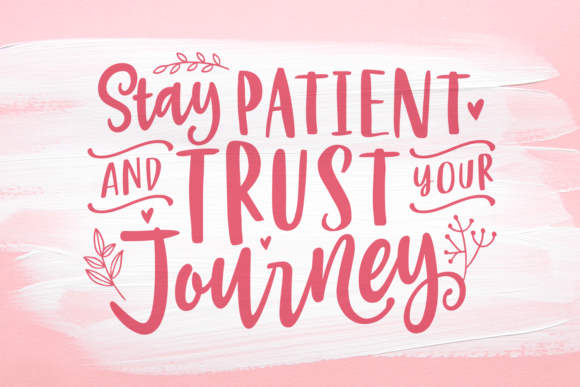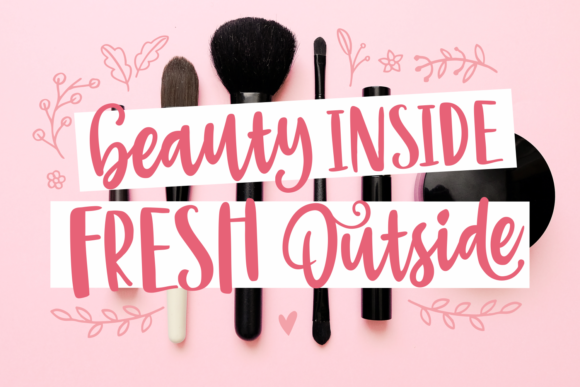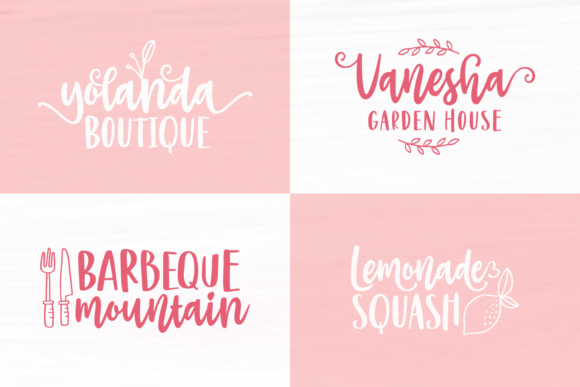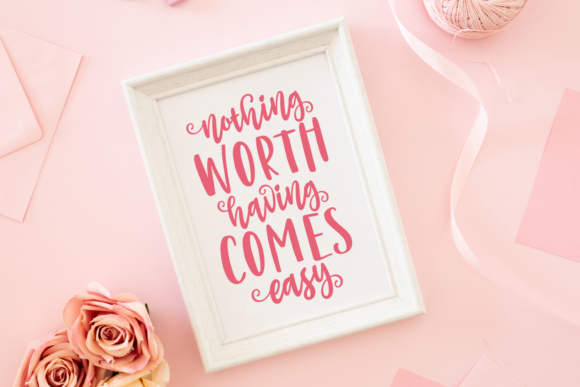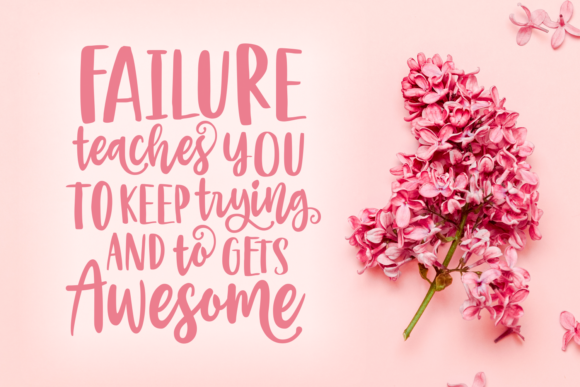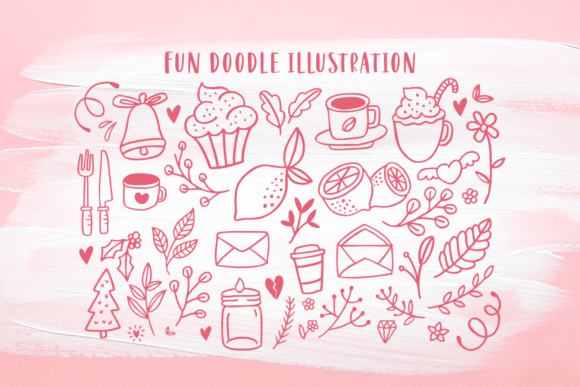
Introduction to Lemonade Squash Font
Do you ever find yourself browsing through a vintage market, searching for the perfect combination of unique charm and nostalgic feel? For designers, that moment is often a treasure trove of inspiration. And what better way to capture that essence than with the perfect font? Enter the Lemonade Squash Font, a sweet and sour, yet incredibly friendly script that is sure to capture your heart.
- Unique, hand-drawn design for creative projects and illustrations
- High-quality, transparent background for easy customization
- Designed to be versatile and suitable for a wide range of design resources
- Perfect for designers working on creative projects that require a playful and whimsical touch
- Includes a range of characters, including uppercase and lowercase letters, numbers, and punctuation marks
Honest Review: Lemonade Squash Font
- ✨ High-quality design: The font is well-crafted, with smooth lines and a cohesive style.
- ✨ Versatile: The font is suitable for a variety of creative projects, from posters to business cards.
- ✨ Transparent background: This makes it easy to use the font on top of any background, giving you more design freedom.
- ⚠️ Limited font styles: The font only comes in a few styles, which may limit its use in certain design situations.
- ⚠️ Not suitable for complex typography: While the font is great for headings and titles, it may not be the best choice for complex paragraphs of text.
Overall, I’m impressed with the Lemonade Squash Font. Its high quality and versatility make it a valuable addition to any designer’s toolkit. While it may not be perfect, it’s definitely worth considering for your next creative project.
To get the most out of the Lemonade Squash Font, use it on a transparent background to create a unique and creative project. This will allow the font to stand out and add a touch of elegance to your design. You can also experiment with different font sizes and colors to create a visually appealing effect.
The Lemonade Squash Font is ideal for various design projects, including logos, business cards, invitations, and social media graphics. Its high-quality design and transparent background make it a great resource for designers who want to create a professional-looking design.